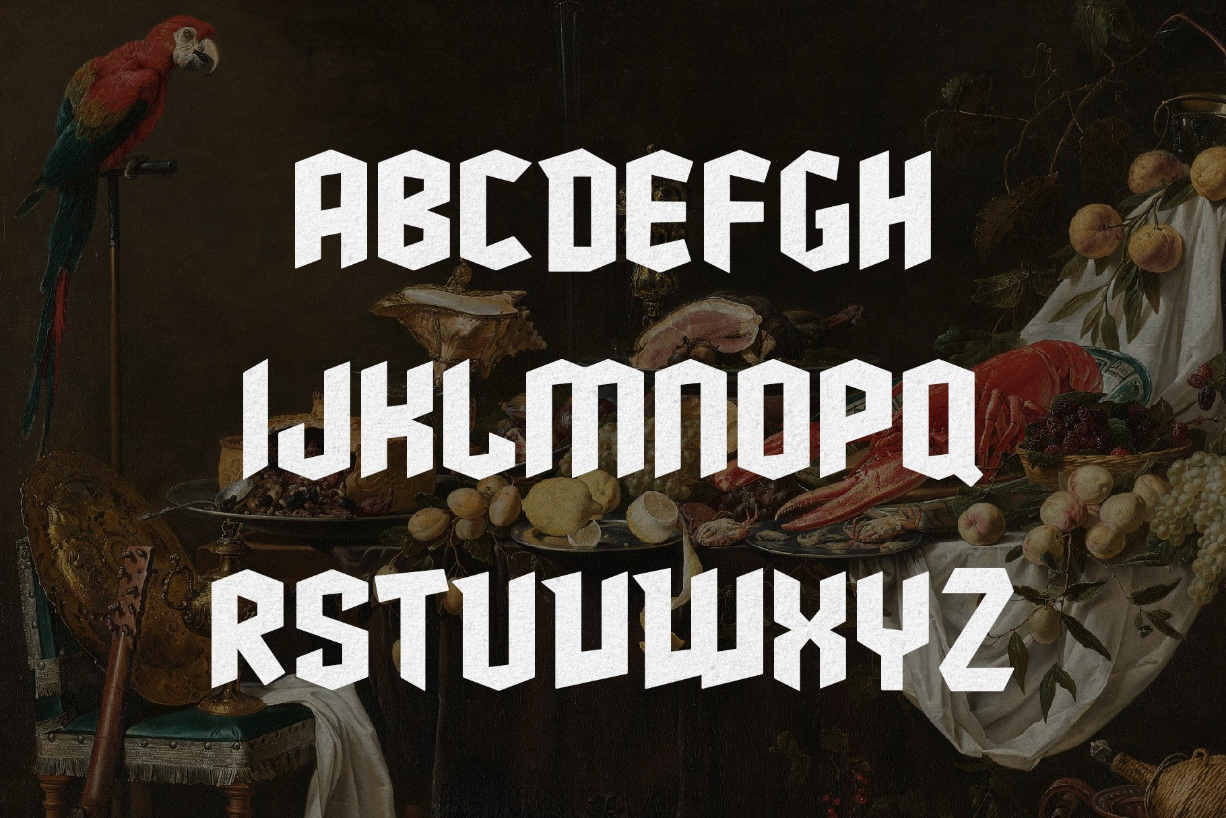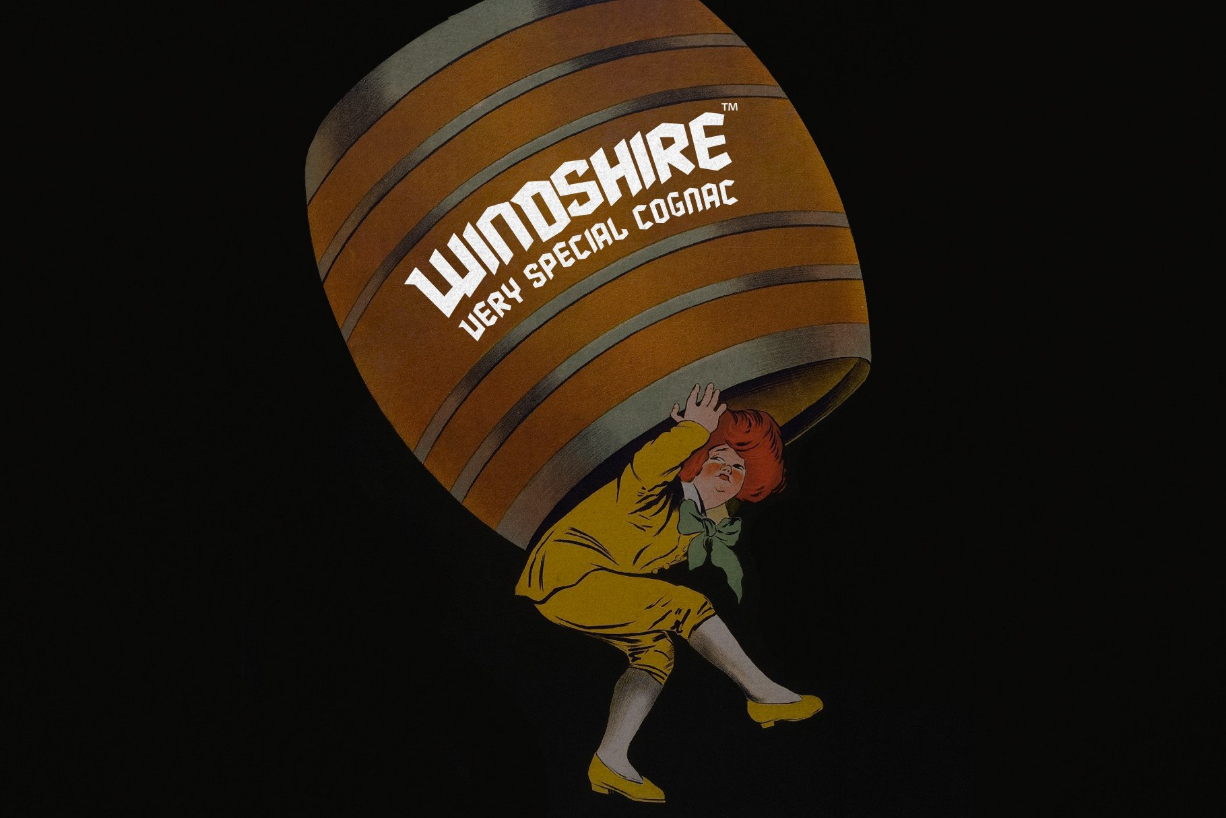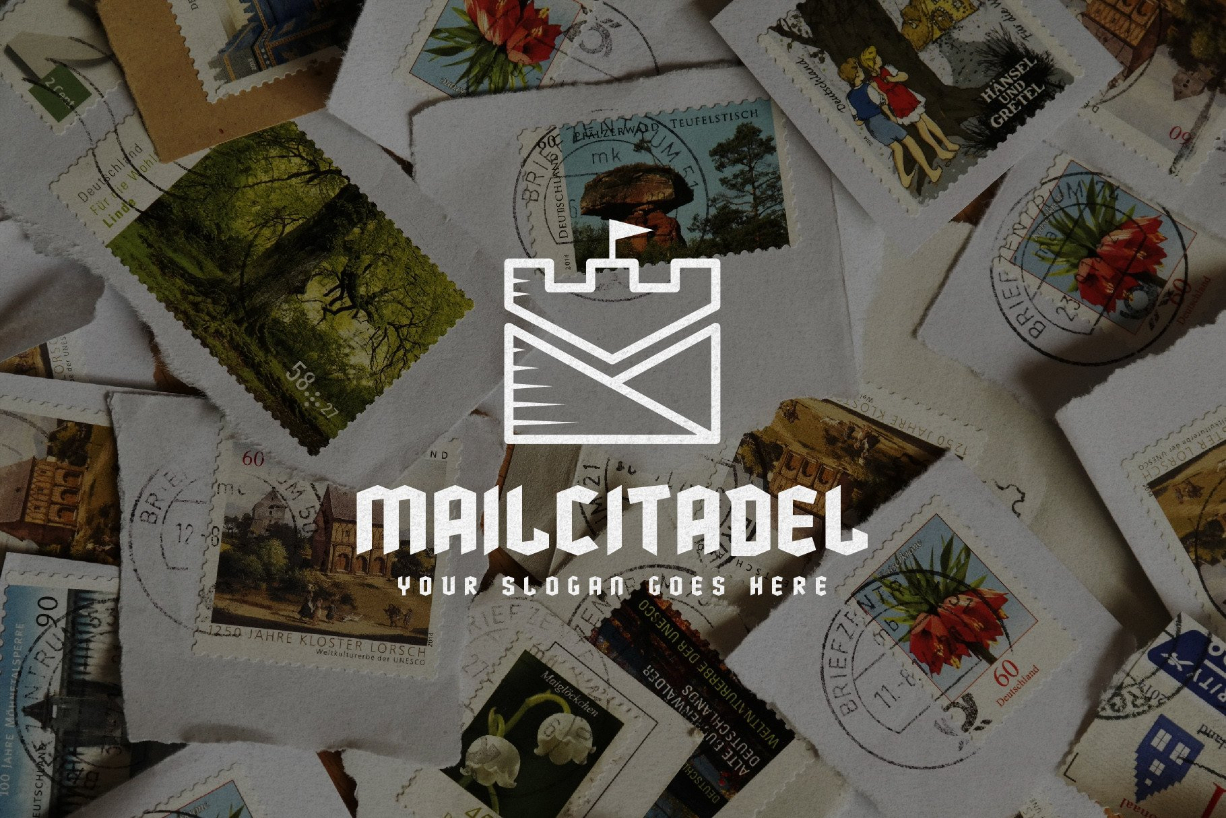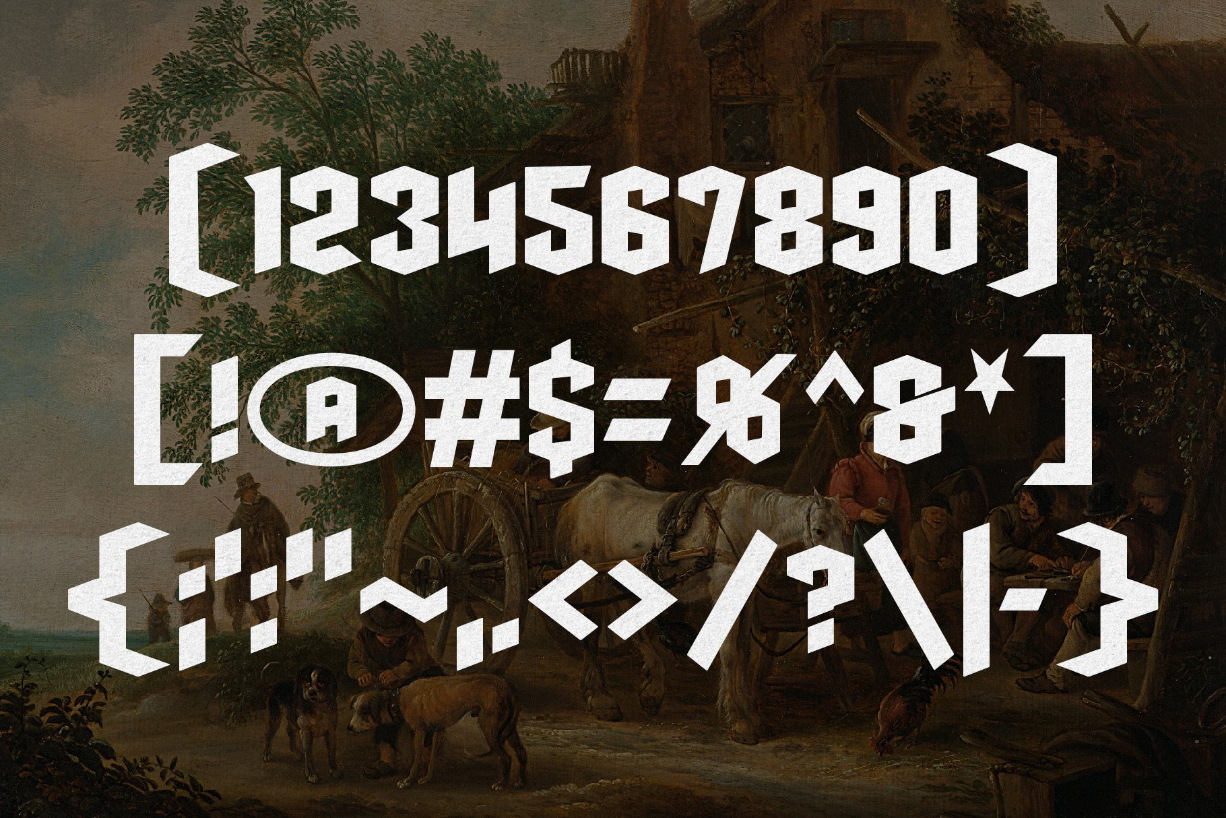
About Windshire Font
Windshire is an all-caps blackletter typeface. It features sharp edges and thick letters. The font looks beautiful in virtually any size. You can use this Gothic typeface for posters, flyers, headlines, packaging, branding, social media posts, YouTube thumbnails, apparel, and much more. If your project requires a medieval vibe, then Windshire is for you!